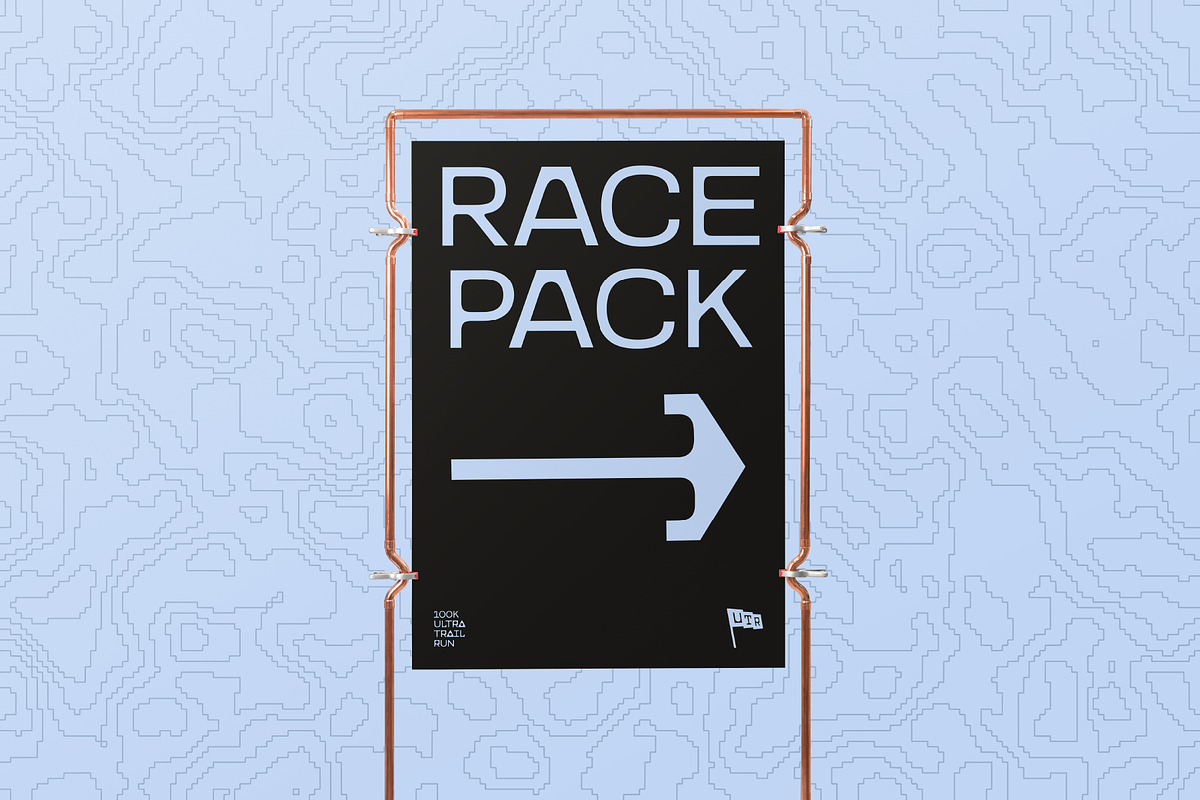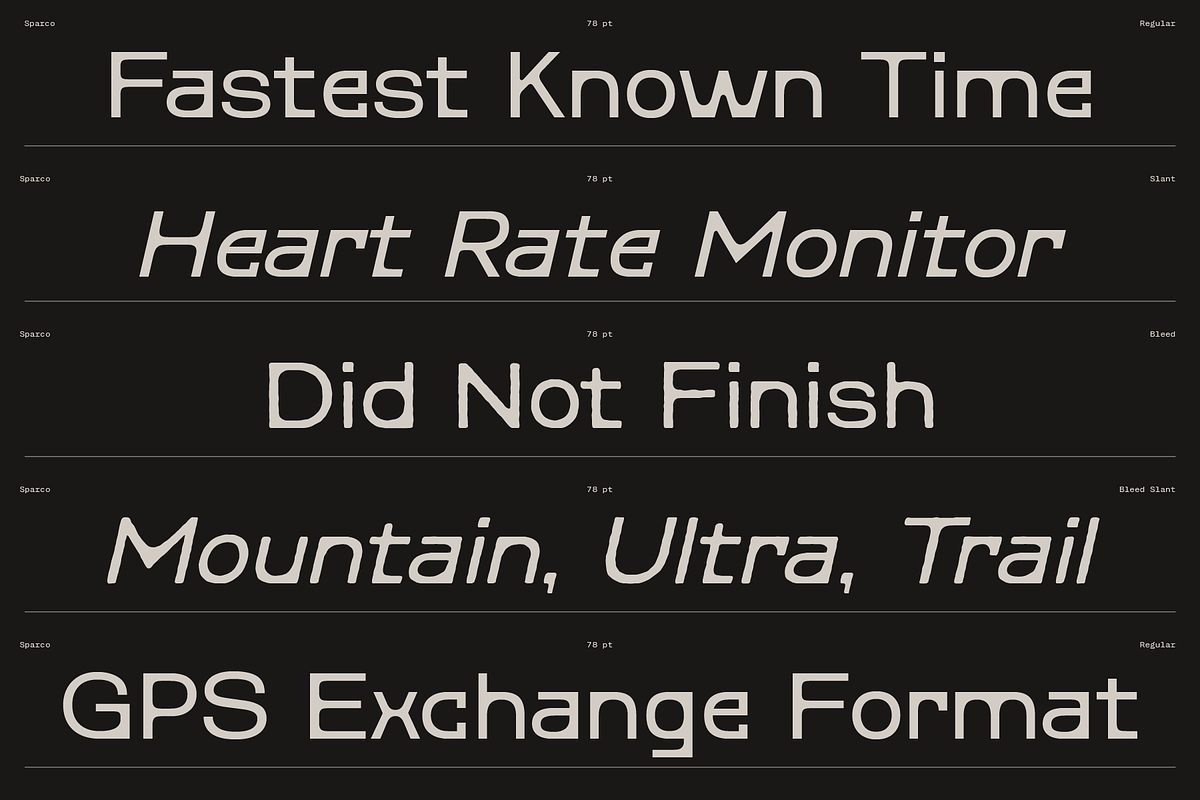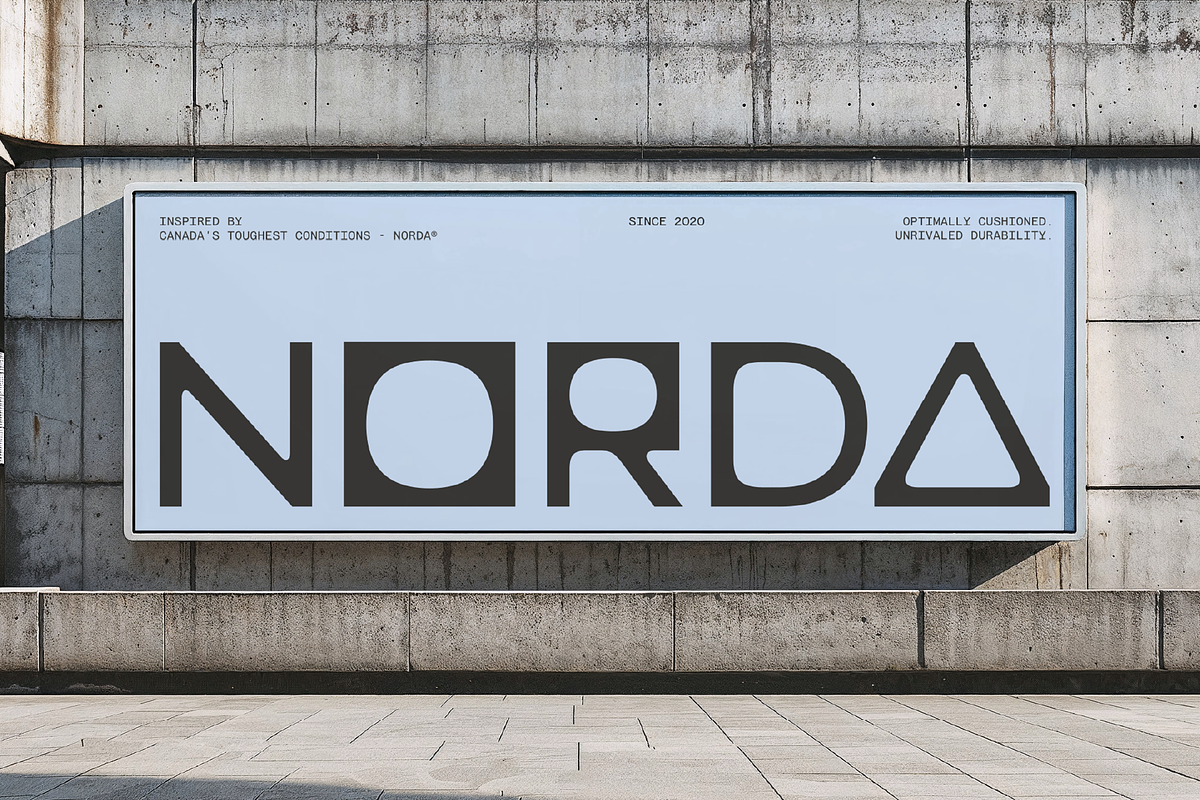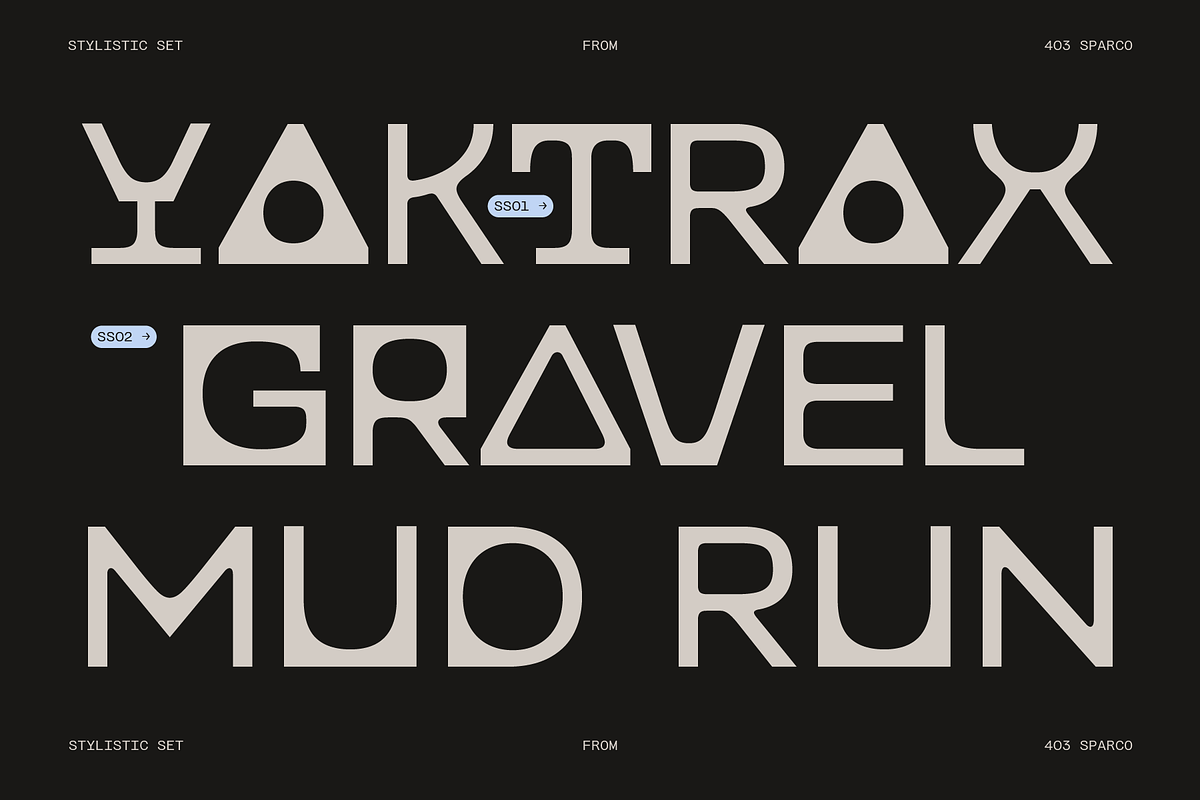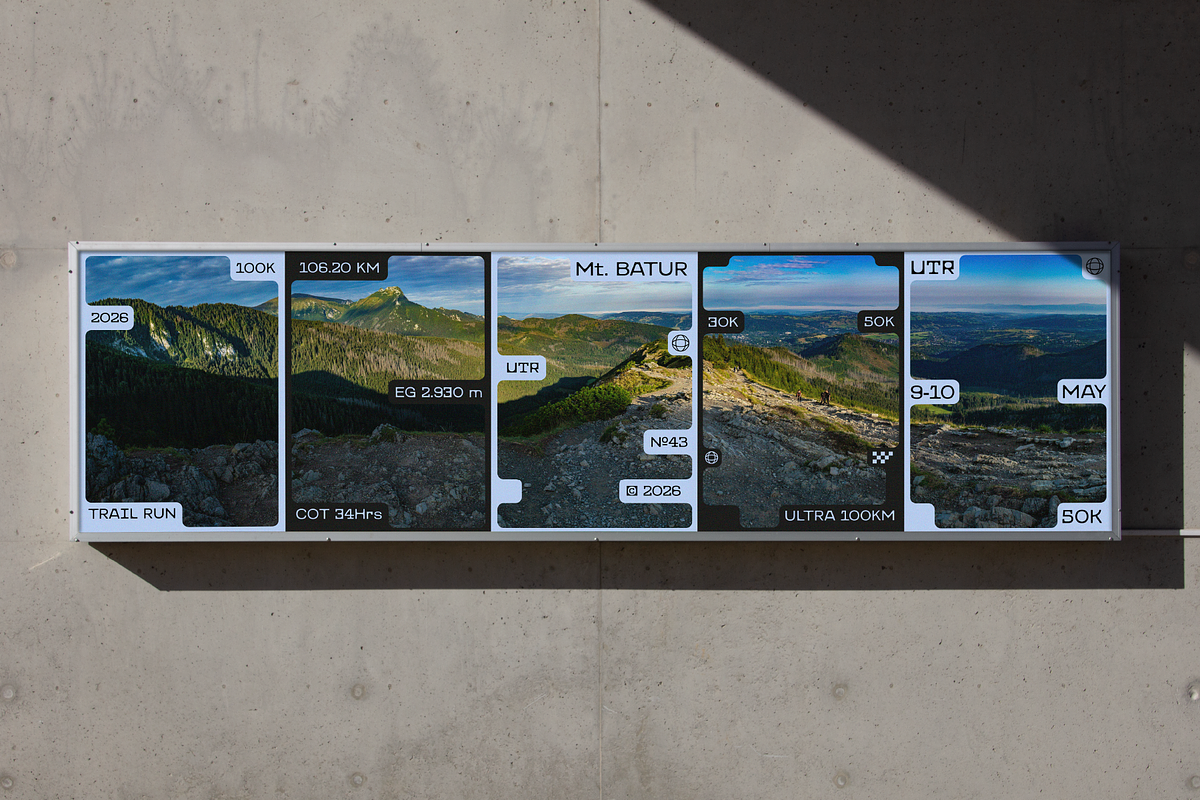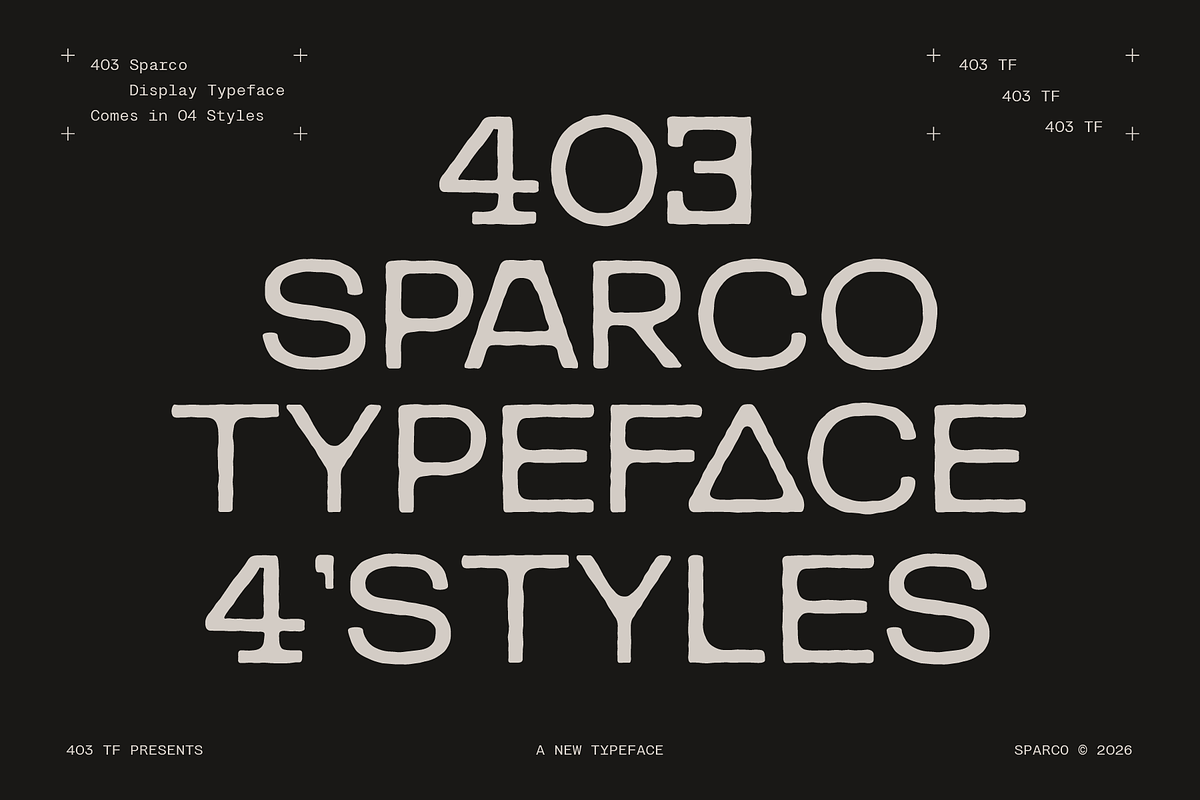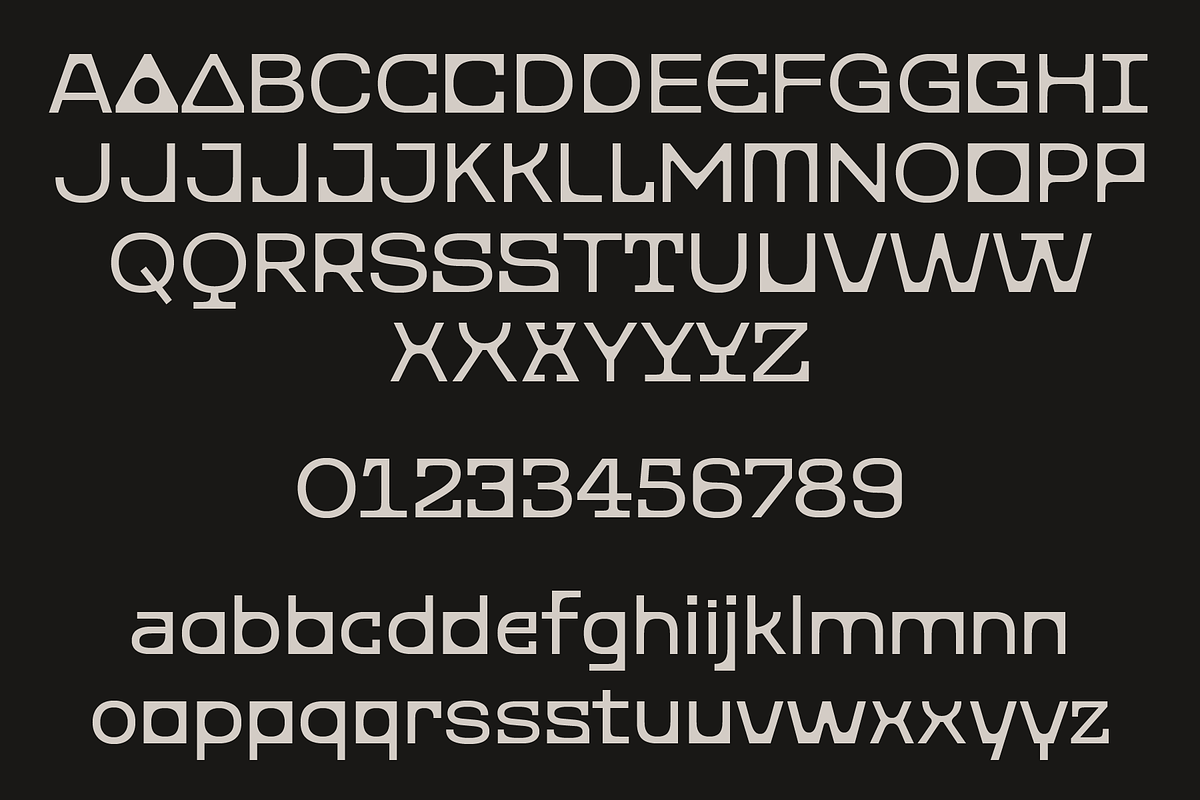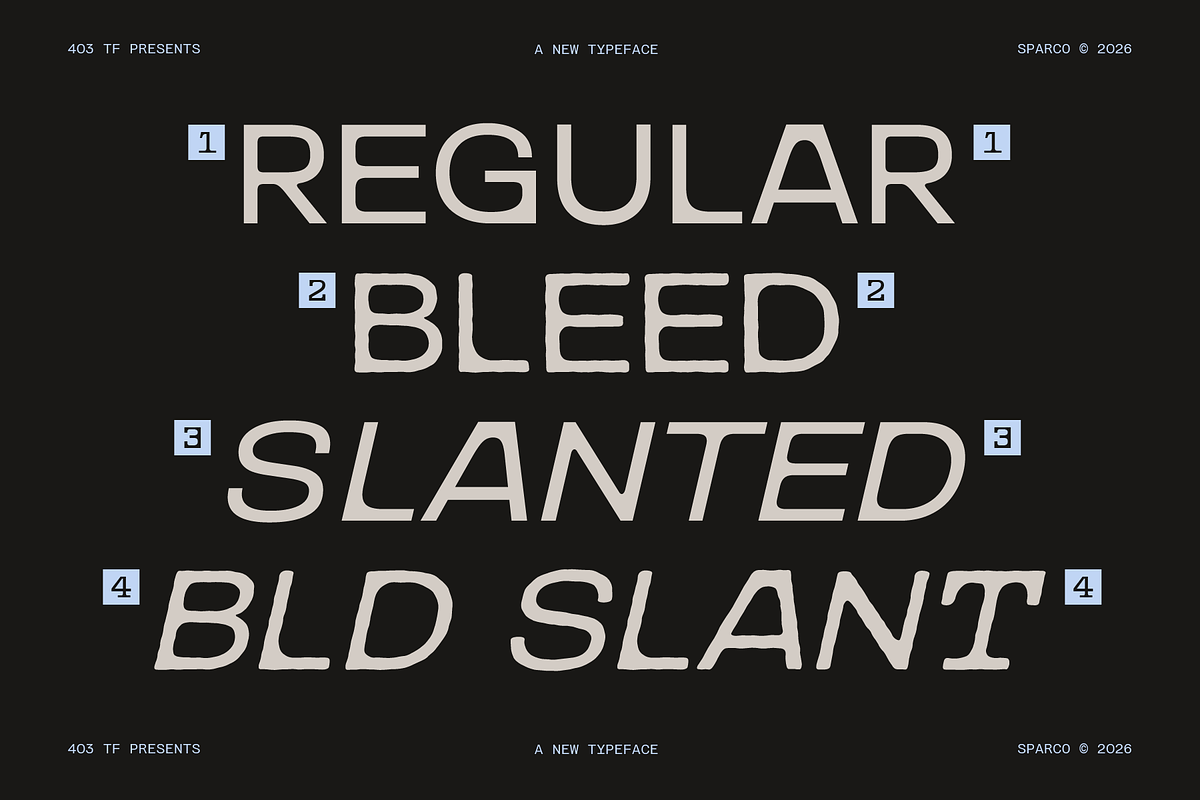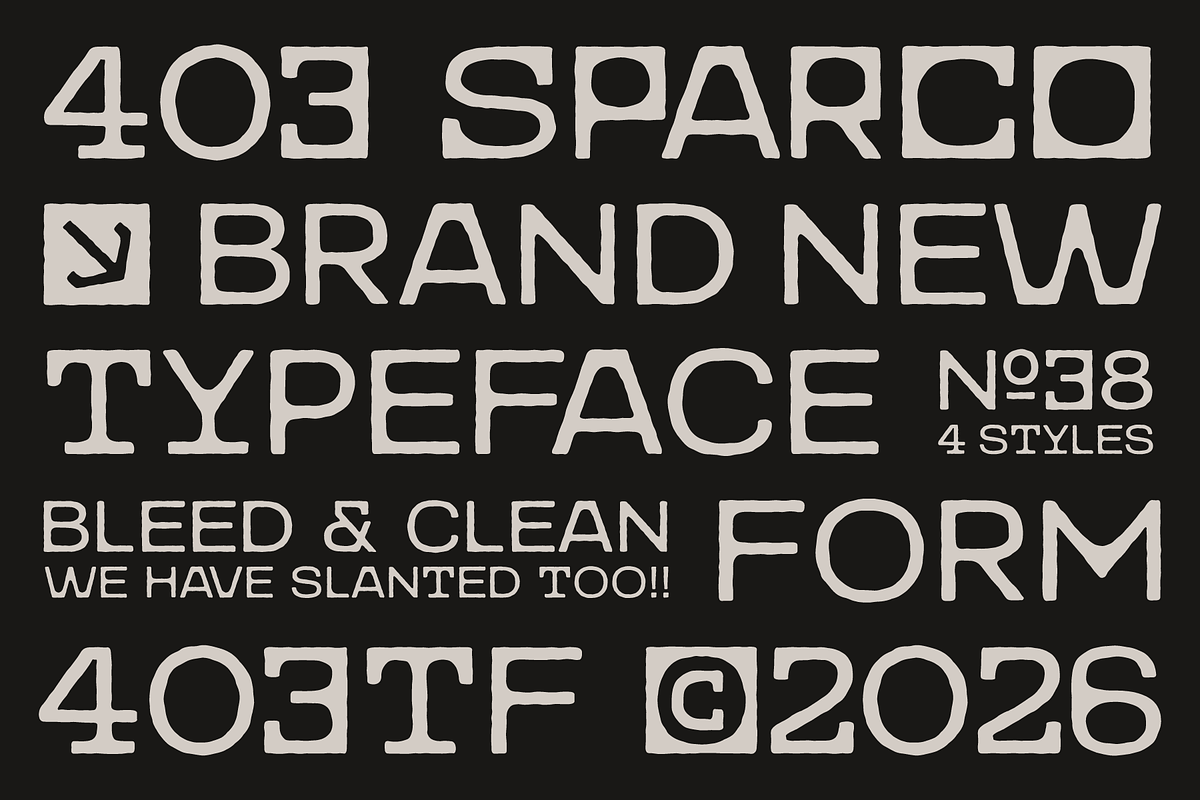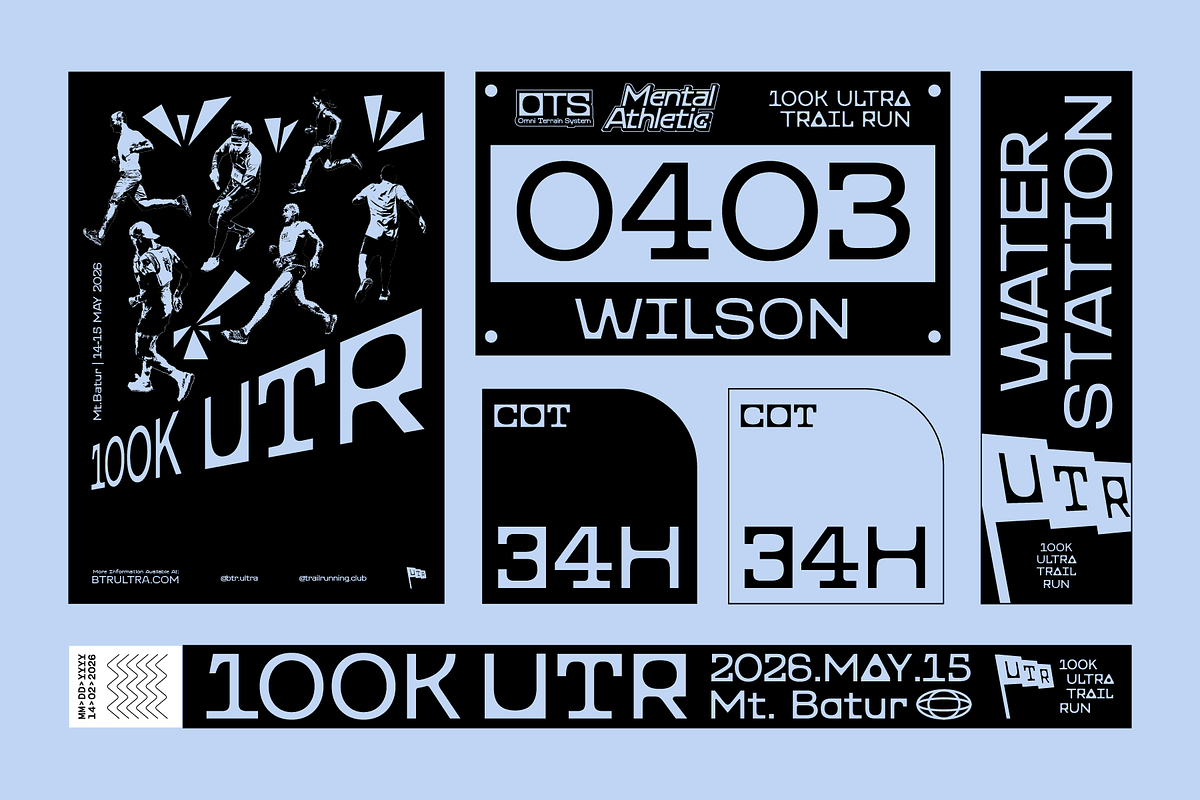
403 Sparco
Looking to give your next project some serious edge? Meet 403 Sparco. It is a heavy-duty display typeface built for pure impact. We designed this to bridge the gap between clean digital precision and raw physical grit. It is perfect if you want typography that truly stands out and grabs attention the second it hits the screen or the printed page.
The whole idea behind Sparco is rooted in industrial utility and high-performance outdoor gear. We love exploring the friction between perfectly engineered structures and the natural wear and tear of the real world. The letterforms are wide, confident, and unapologetically boxy. The "Regular" style gives you a crisp, machine-cut look. On the flip side, the "Bleed" version brings in a beautiful, organic roughness that feels exactly like heavy ink bleeding on tactical nylon or a weathered trail sign. When you throw in the Slanted styles, the typeface takes on a kinetic sense of speed and forward momentum.
We built this specifically for fellow designers, art directors, and indie creators who love pushing boundaries. If you are working on tech-wear labels, gorpcore branding, extreme sports apparel, or brutalist visual identities, Sparco is exactly what you need. It looks incredible on oversized heavy-cotton tees, technical spec sheets, race bibs, and underground event flyers. It is tough, reliable, and ready to do the heavy lifting for your brand.
Feature Breakdown:
4 Distinct Styles: Includes Regular, Bleed, Slant, and Bleed Slant for versatile and high-contrast pairings.
Massive Character Set: 769 meticulously crafted glyphs in every single style.
Global Language Support: Fully optimized to support 341 languages for your international campaigns.
Utilitarian Aesthetics: An industrial, brutalist vibe perfect for technical, outdoor, and heavy-duty projects.
High-Impact Proportions: Wide and structured letterforms made specifically for bold headlines and logotypes.